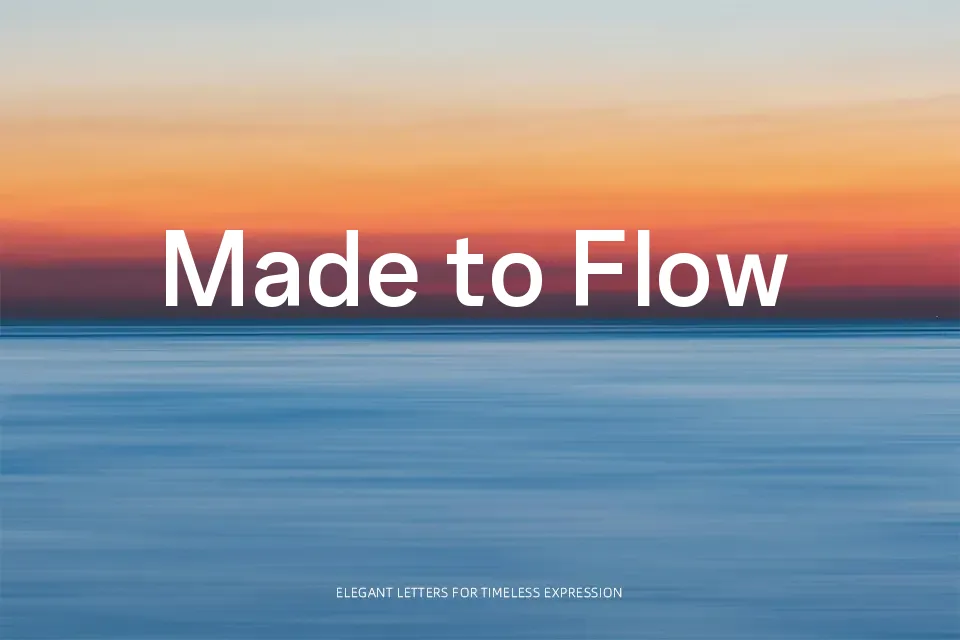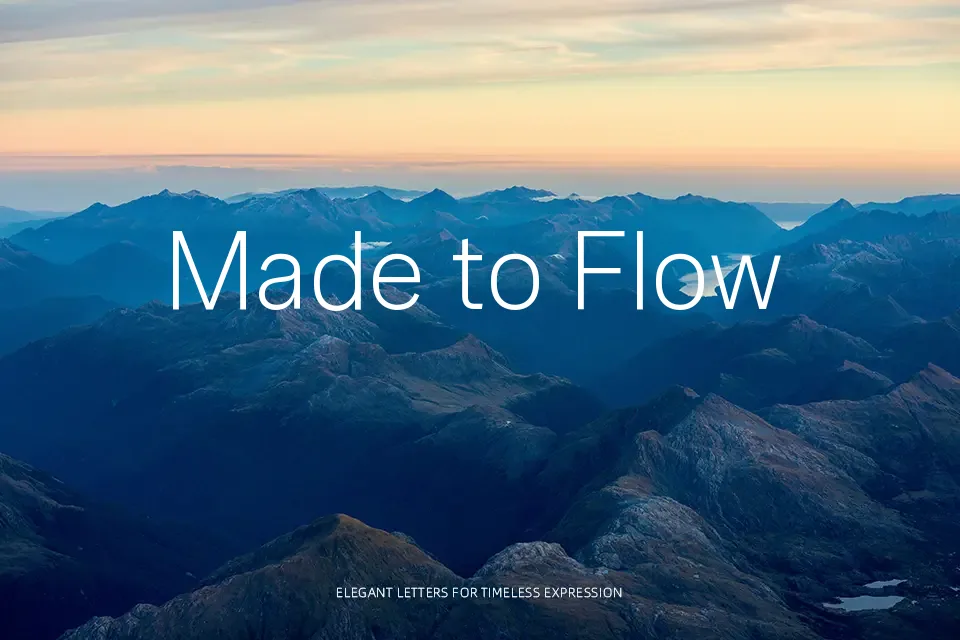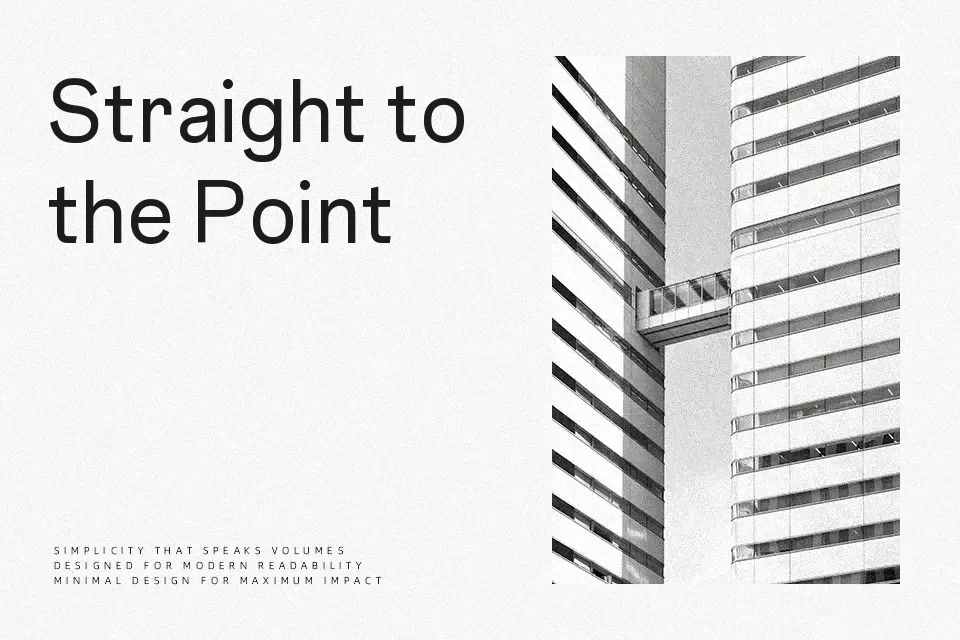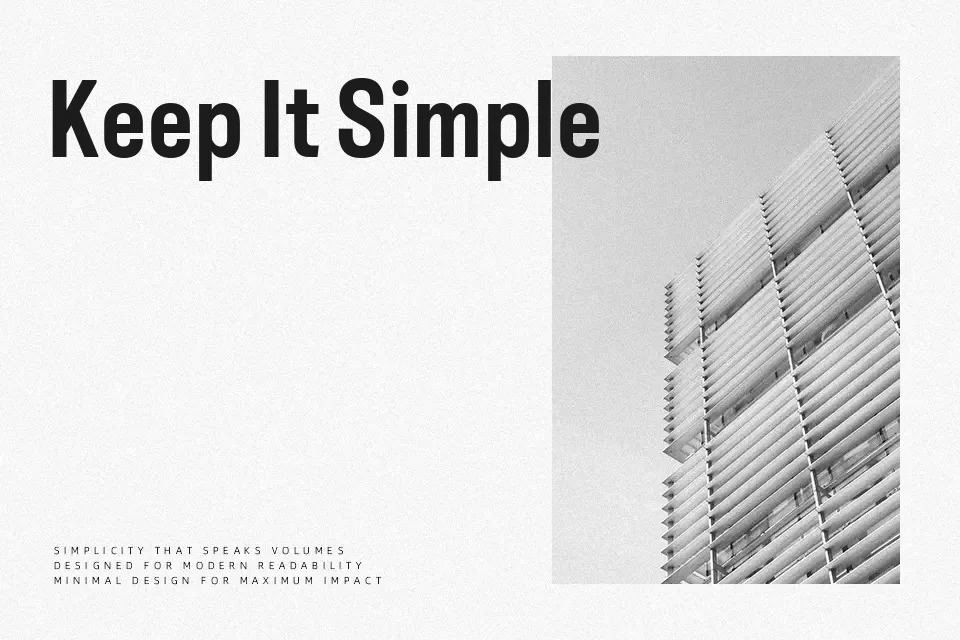
Instagram Sans Font
Designed by Colophon Foundry
Reviewing Instagram Sans reveals a custom typeface designed to balance universal readability with distinct brand personality. Created by Colophon Foundry for Meta, the font merges the straightforward clarity of a geometric grotesque with softer, rounded forms directly inspired by Instagram’s “squircle” logo. The standard and condensed weights perform exceptionally well in digital environments, offering clean legibility for app menus, software UI, and digital marketing materials. However, its most unique feature—the “Headline” or “Script” alternates, which introduce exaggerated, cursive-inspired flourishes—can be polarizing. While these stylized glyphs add excellent character to short social media graphics and creator campaigns, they become overwhelmingly strange and distracting in body text. Designers must avoid using the stylized script variants for formal corporate documentation or long-form print editorial, where they will appear deeply unprofessional.
social media campaign graphics
app interface typography
creator portfolio branding
digital marketing headlines
formal corporate reports
academic and legal documents
dense book body copy
Perfect for advertising, headline, and social media, with a clean and geometric style.